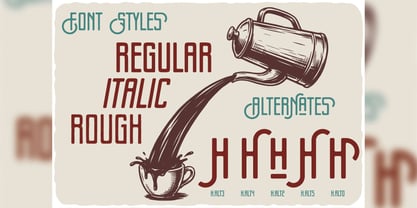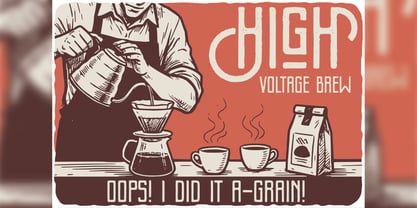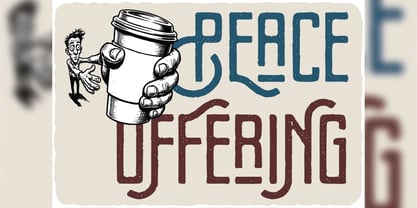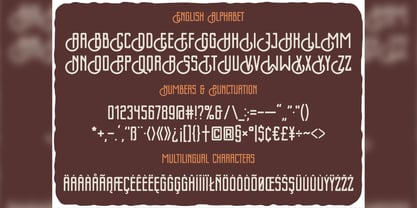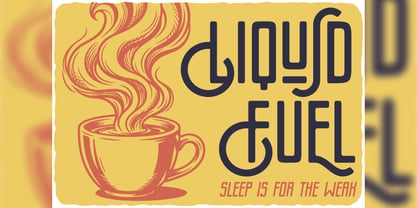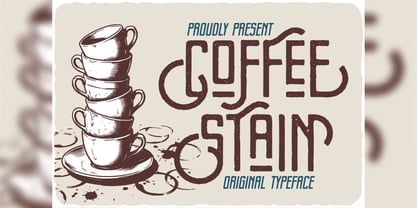
Coffee Stain
by Vozzy
The Coffee Stain Font Family was designed by Oleg Voznyy and published by Vozzy. Coffee Stain contains 2 styles and family package options. More about this family
Introducing "Coffee Stain," a distinctive font designed to make your headlines and accent inscriptions stand out. Perfect for capturing attention, this font features a wide array of additional characters, punctuation marks, and multilingual options, along with numerous alternate characters—ensure your software supports these OpenType features for optimal use. "Coffee Stain" is ideal for branding, web design, and editorial projects, adding a unique flair to your beautiful designs!
Designers: Oleg Voznyy
Foundry: Vozzy